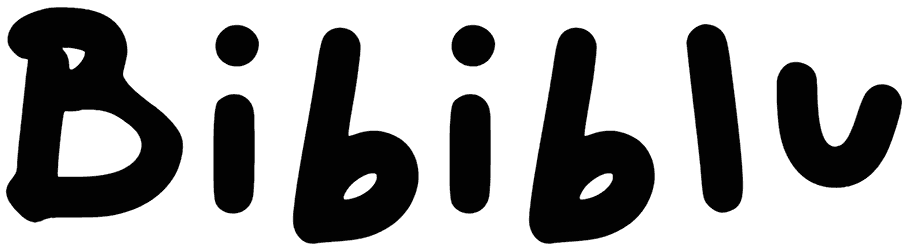
Bibiblu Font
Because of Bibiblu’s bold and unique style, it’s a great way to grab your audience’s attention and entice them to read your content. This playful handwritten font can give a more childish tone to your design and invite you to choose a very good font for animations and computer games.
On the other hand, the bold mode of this script font can create a happy and exciting atmosphere, which makes it an excellent font choice for an invitation to a fun party.